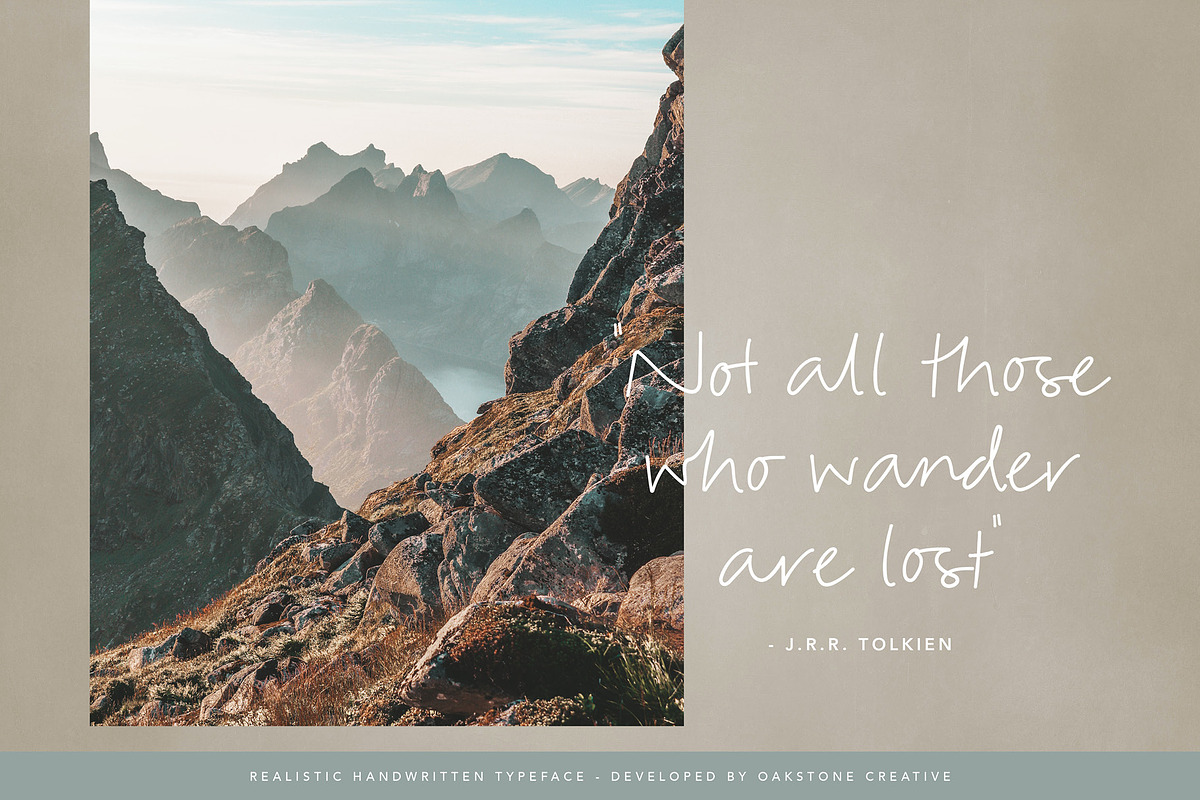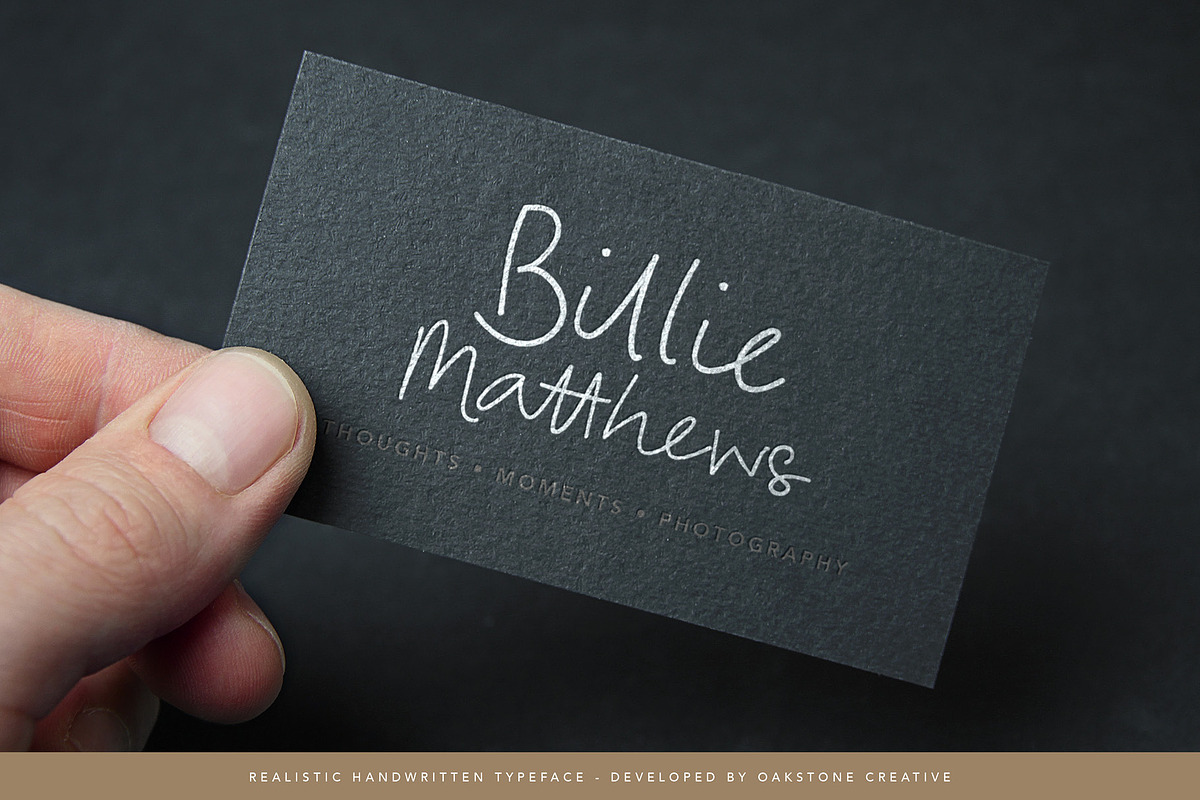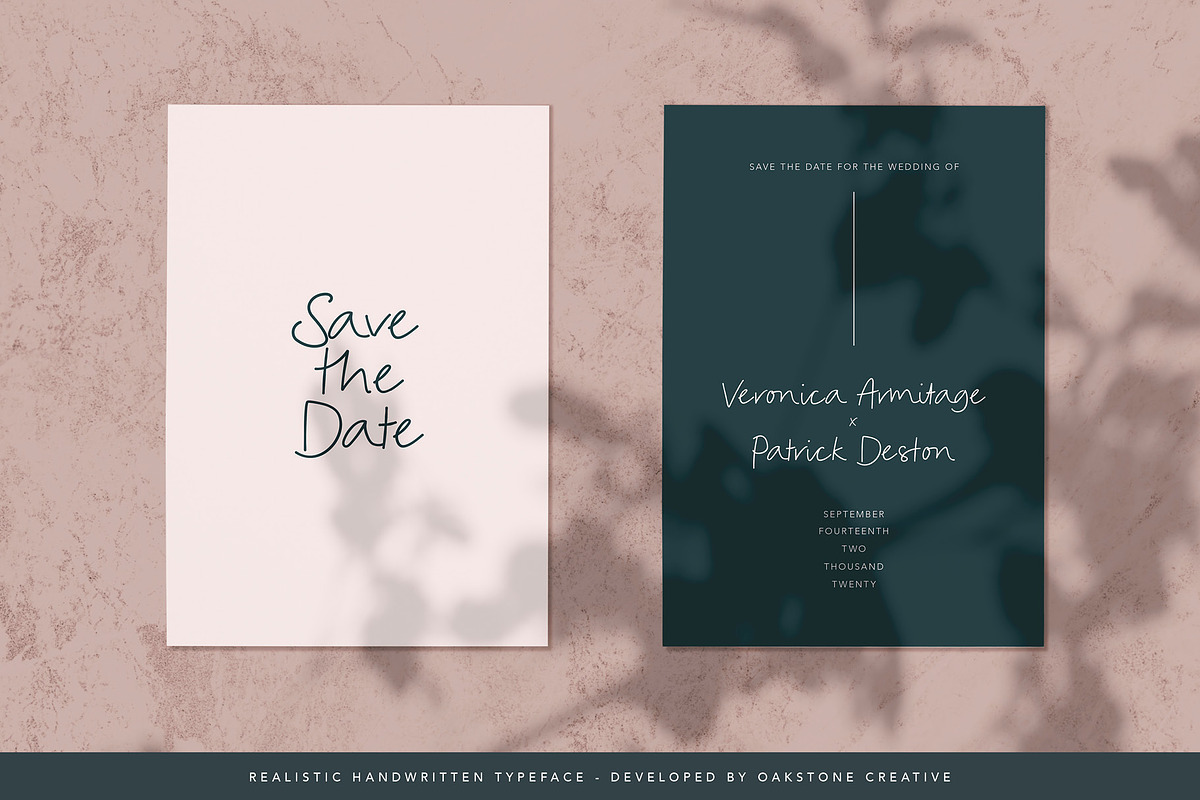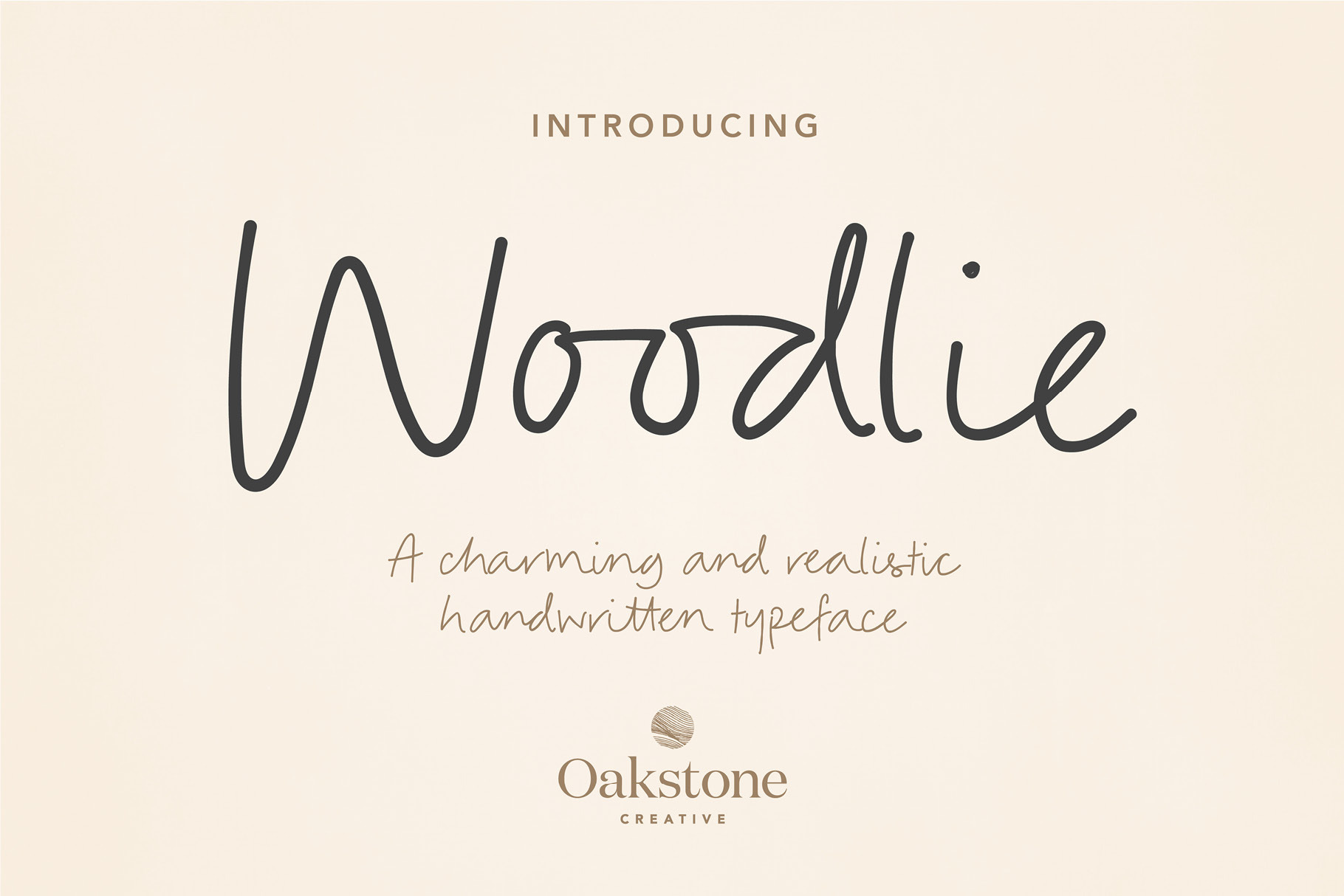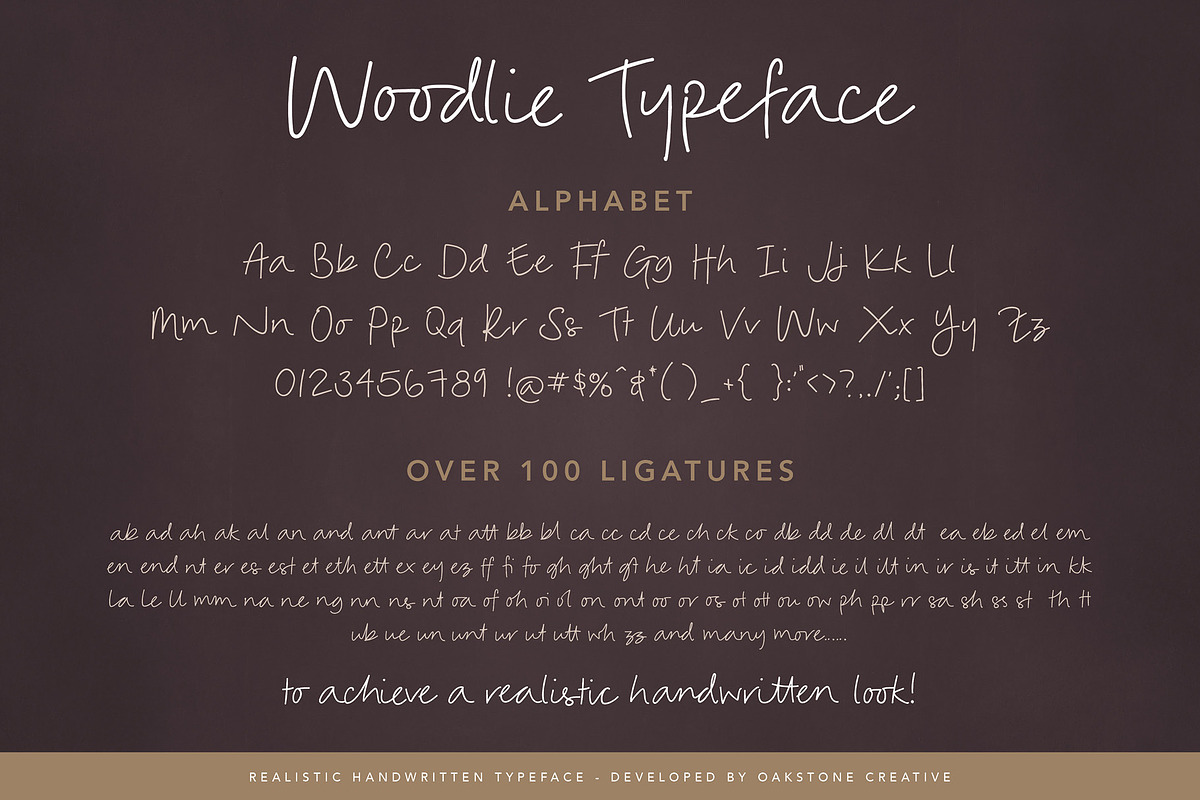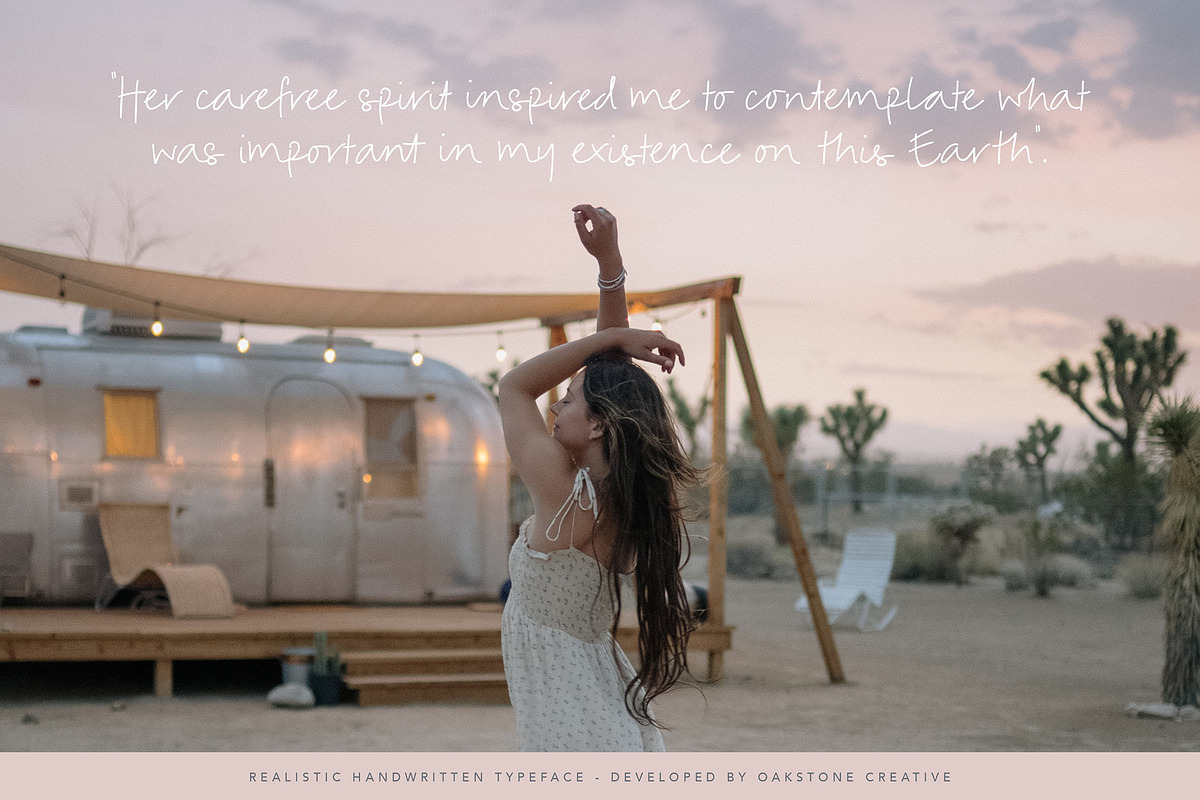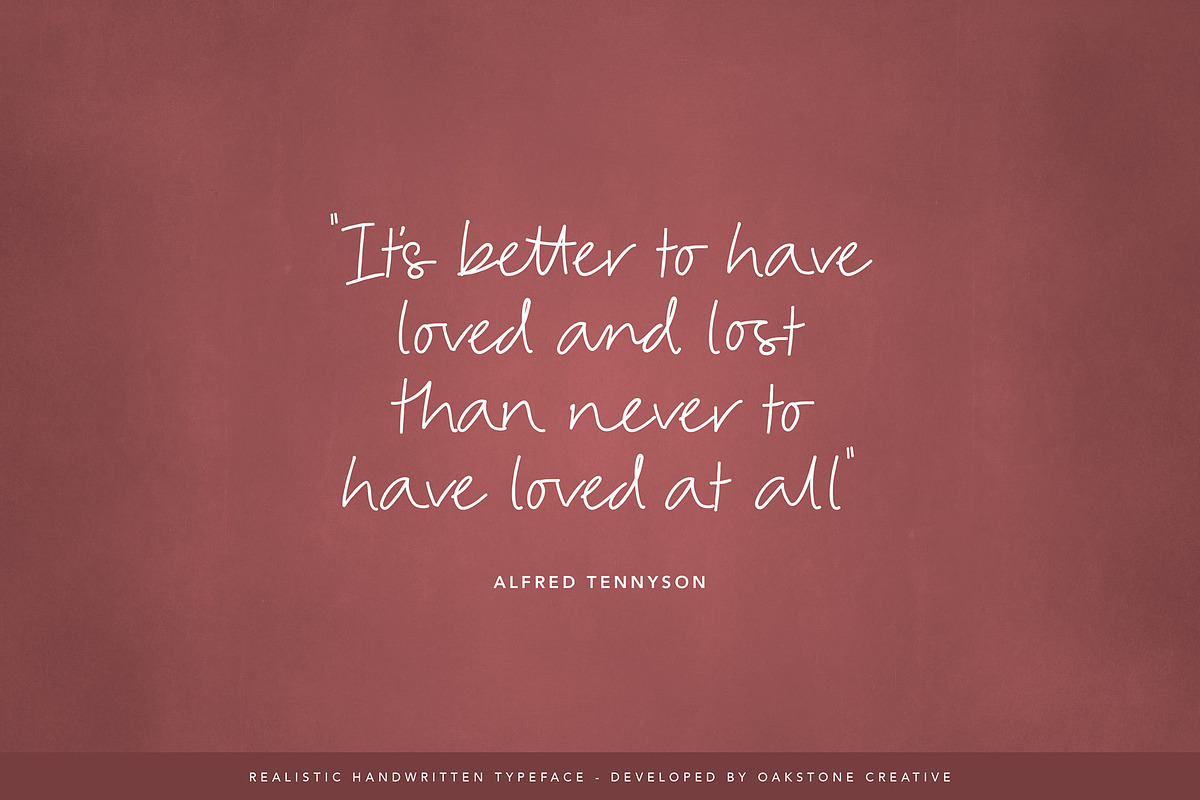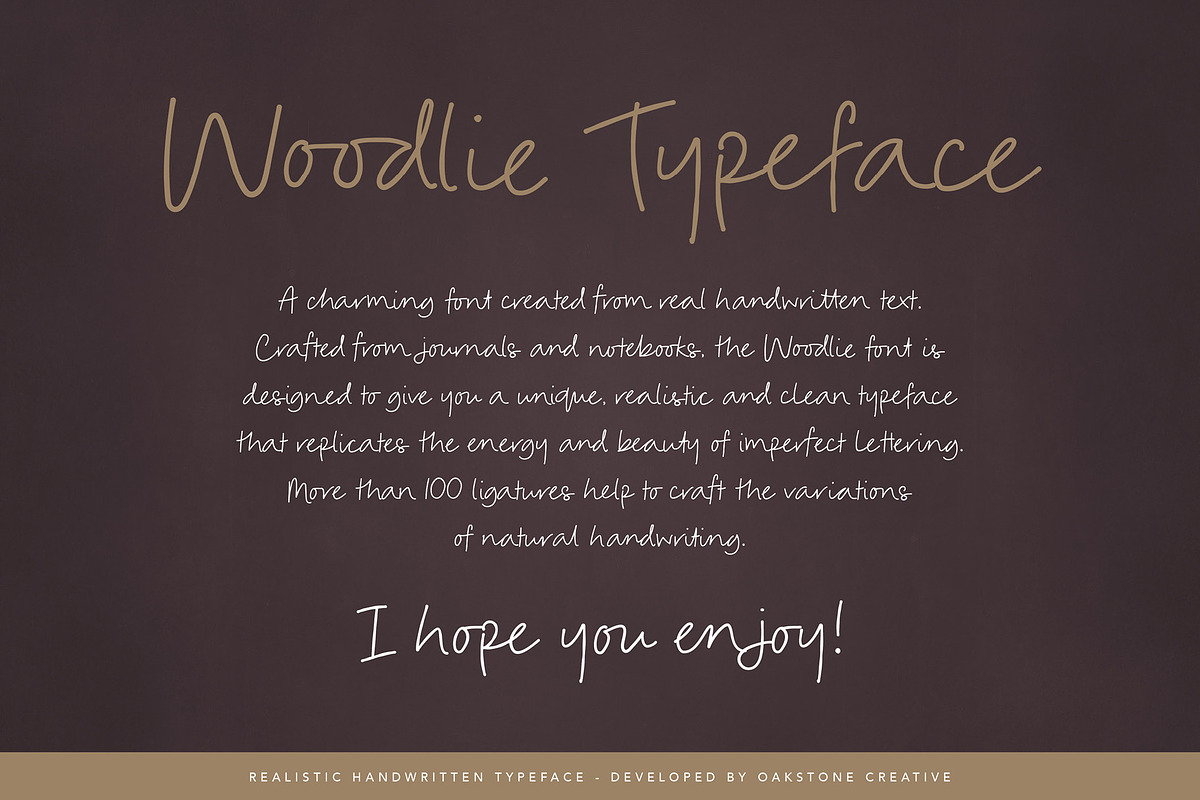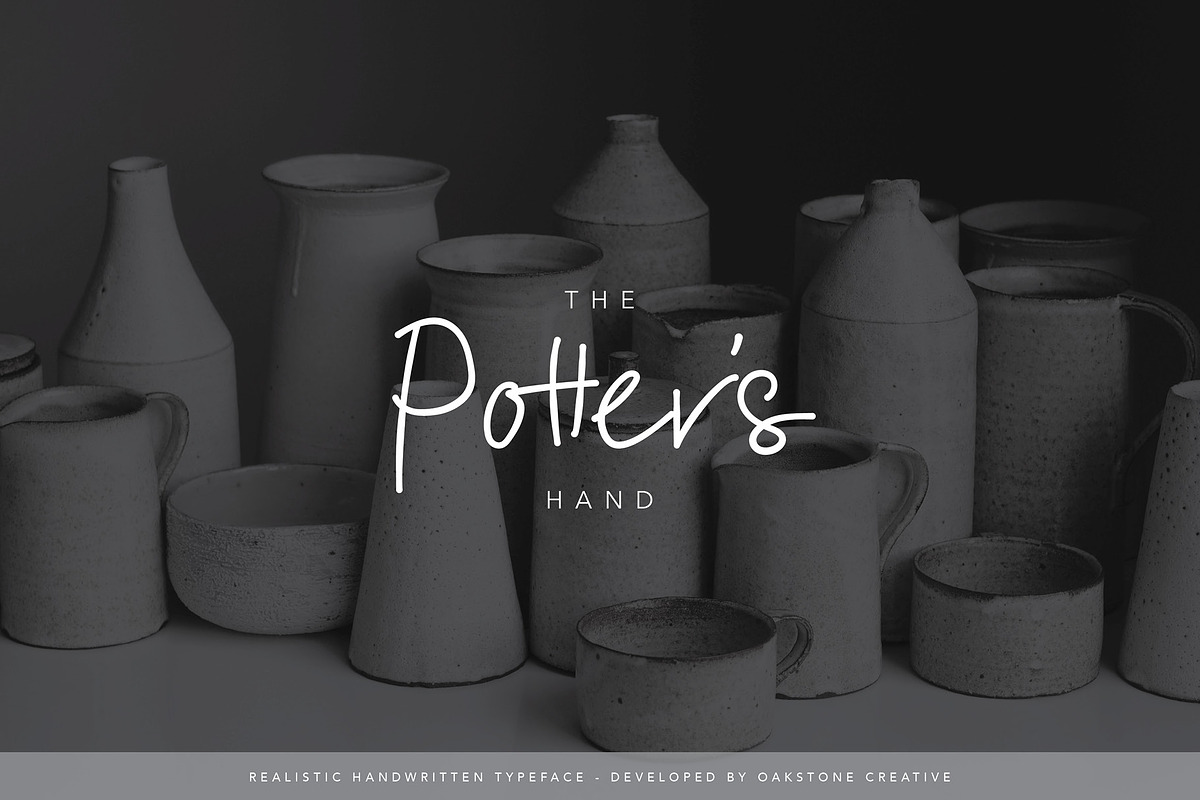
Woodlie - Handwritten Journal Font
Woodlie is a casual, handwritten font inspired by everyday scribbles, journal entries, and thoughtful notes in the margins. Designed to feel natural and authentic — like a favourite pen gliding across a page — this font captures the charm and immediacy of real handwriting.
Clean yet characterful, Woodlie is perfect for projects that call for a personal, informal touch: journaling layouts, editorial design, planner pages, blog graphics, stationery, and more. The subtle imperfections and flowing rhythm create a relaxed, legible style that adds warmth without sacrificing clarity.
Whether you’re working on digital notebooks, printable downloads, or design assets that need a human voice, Woodlie offers a soft-spoken, approachable personality that works across a wide range of creative applications.
- Uppercase and lowercase letters
- Smooth, note-style brush strokes
- Perfect for journals, planners, quotes, and digital paper goods